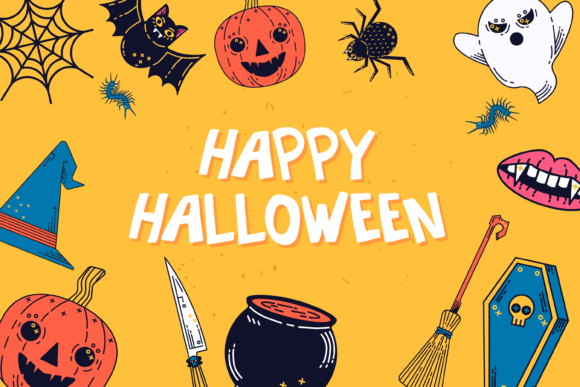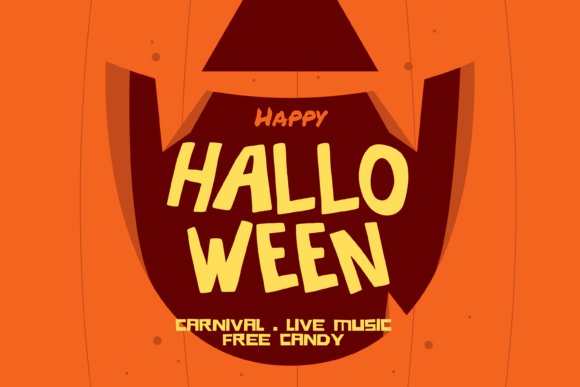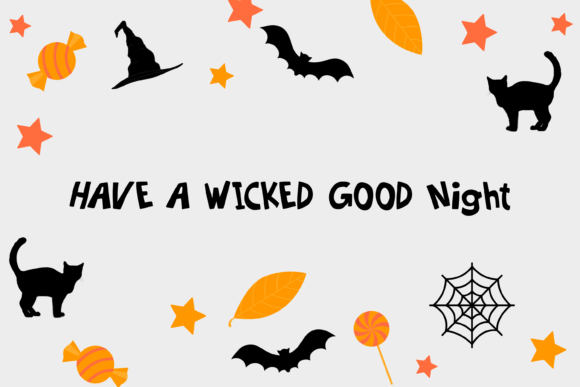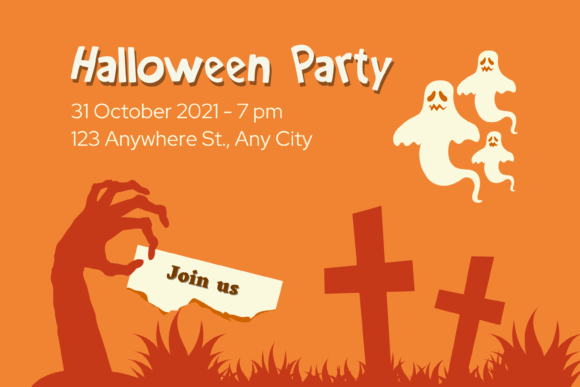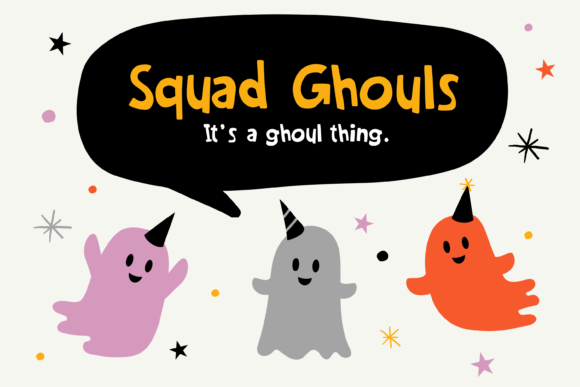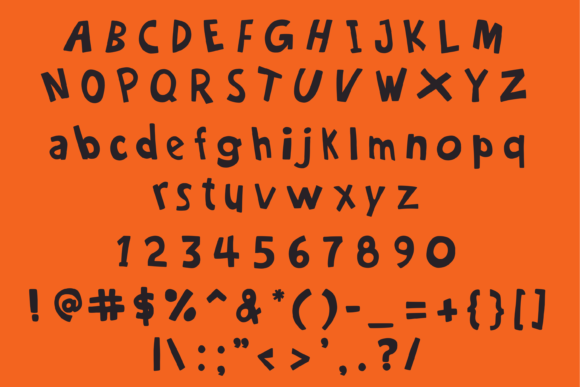
Introducing the Flintstone Font: A Cool and Playful Display Font
Are you looking for a font that can add a touch of playfulness and fun to your designs? Look no further than the Flintstone Font! This amazing display font is perfect for cartoon-related designs, children’s games, and any creation that requires a lovely touch. In this article, we’ll explore the features and benefits of the Flintstone Font, and why it’s a must-have for designers and crafters.
What is the Flintstone Font?
The Flintstone Font is a cool and playful display font that is inspired by the classic cartoon series, The Flintstones. The font features a unique and distinctive design, with bold lines, rounded edges, and a fun, bouncy feel. It’s perfect for creating eye-catching headlines, titles, and text that will grab the attention of your audience.
Key Features of the Flintstone Font
- Playful and Fun Design: The Flintstone Font features a playful and fun design that is perfect for creating cartoon-related designs, children’s games, and other creations that require a lighthearted touch.
- Bold and Rounded Edges: The font features bold lines and rounded edges, which give it a unique and distinctive look.
- High-Quality Design: The Flintstone Font is designed with high-quality and precision, ensuring that it looks great in any size or format.
- Easily Readable: Despite its playful design, the Flintstone Font is easily readable, making it perfect for use in a variety of designs and applications.
Benefits of Using the Flintstone Font
So why should you use the Flintstone Font in your designs? Here are just a few benefits of using this amazing font:
- Adds a Touch of Playfulness: The Flintstone Font adds a touch of playfulness and fun to your designs, making it perfect for creating cartoon-related designs, children’s games, and other creations that require a lighthearted touch.
- Perfect for Kids’ Designs: The font is perfect for use in kids’ designs, such as children’s games, educational materials, and kids’ websites.
- Great for Headlines and Titles: The Flintstone Font is perfect for creating eye-catching headlines and titles that will grab the attention of your audience.
- Versatile: The font is versatile and can be used in a variety of designs and applications, from digital designs to print materials.
How to Use the Flintstone Font
- Use it for Headlines and Titles: The Flintstone Font is perfect for creating eye-catching headlines and titles that will grab the attention of your audience.
- Pair it with Other Fonts: The font pairs well with other fonts, so feel free to experiment with different combinations to create a unique look.
- Use it in Kids’ Designs: The font is perfect for use in kids’ designs, such as children’s games, educational materials, and kids’ websites.
In conclusion, the Flintstone Font is a cool and playful display font that is perfect for cartoon-related designs, children’s games, and any creation that requires a lovely touch. With its unique and distinctive design, bold lines, and rounded edges, this font is sure to add a touch of playfulness and fun to your designs. Whether you’re a designer, crafter, or DIY enthusiast, the Flintstone Font is a must-have font that you’ll love using in your projects.